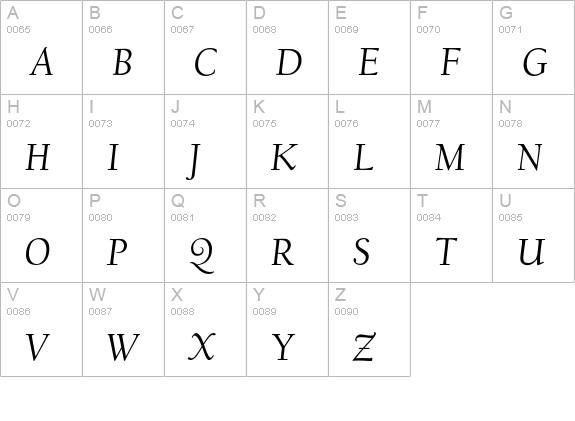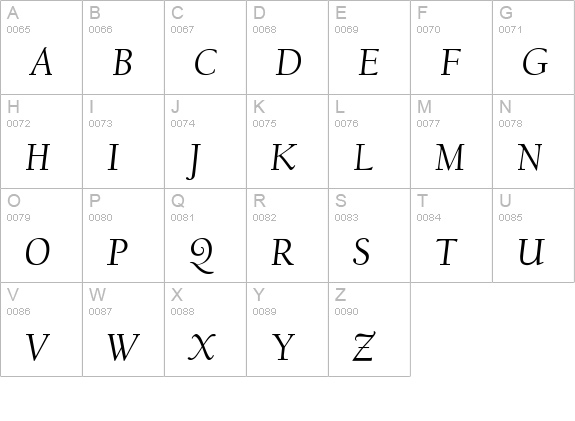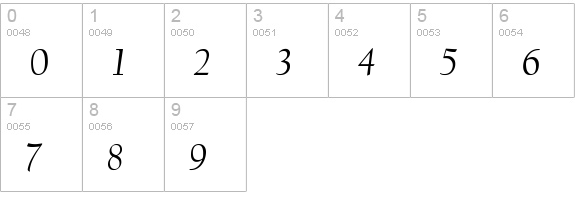
FBCalifornian-Italic is a distinctive, italic variant in the FBCalifornian typeface family \xE2\x80\x94 well suited to design and typography projects.
FBCalifornian-Italic font is a stunning and elegant typeface that exudes sophistication and charm. Its delicate curves and slanted design lend a touch of class to any project, making it perfect for use in invitations, branding, and editorial design. The italic style adds a sense of movement and fluidity to the text, making it visually appealing and engaging to the reader. What's even better is that FBCalifornian-Italic font is available for free download at FontsMarket.com. This means you can easily access this beautiful typeface without any cost, allowing you to enhance your designs with a touch of elegance and style. Don't miss out on the opportunity to elevate your projects with the timeless beauty of FBCalifornian-Italic font, now freely available for download.